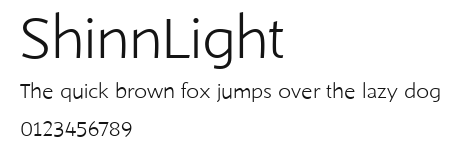
• Font Name: ShinnLight
• Full Font Name: ShinnLight
• Manufacturer: Red Rooster Typefounders
About ShinnLight.ttf
ShinnLight.ttf is a modern, elegant sans-serif font designed for ultimate readability and visual harmony. Perfect for branding, headlines, web design, and print materials.